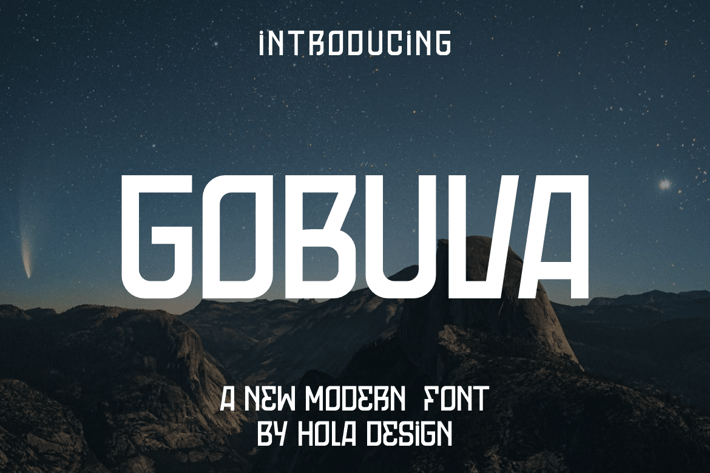
Gobuva - Modern Font
Gobuva - Modern Font Font is unique . Ready to use for your design like labeling, movie sceen, poster, movie title, gigs, album covers, logos, and much more.